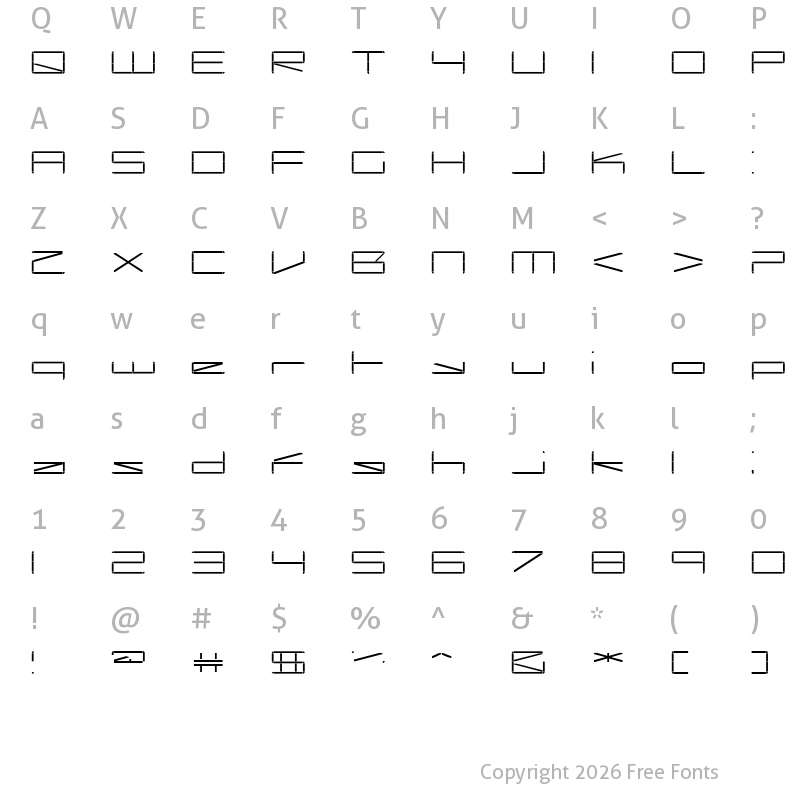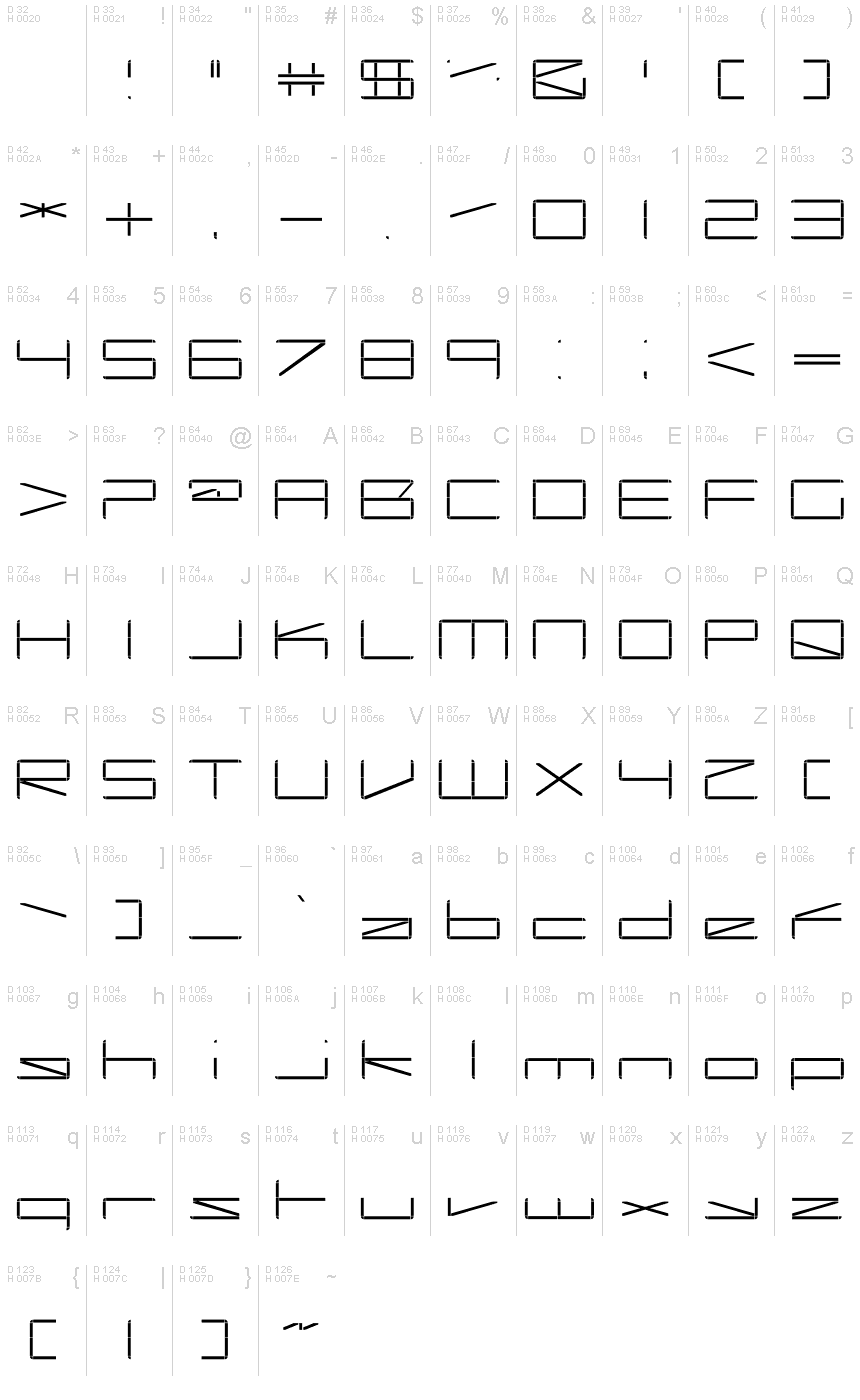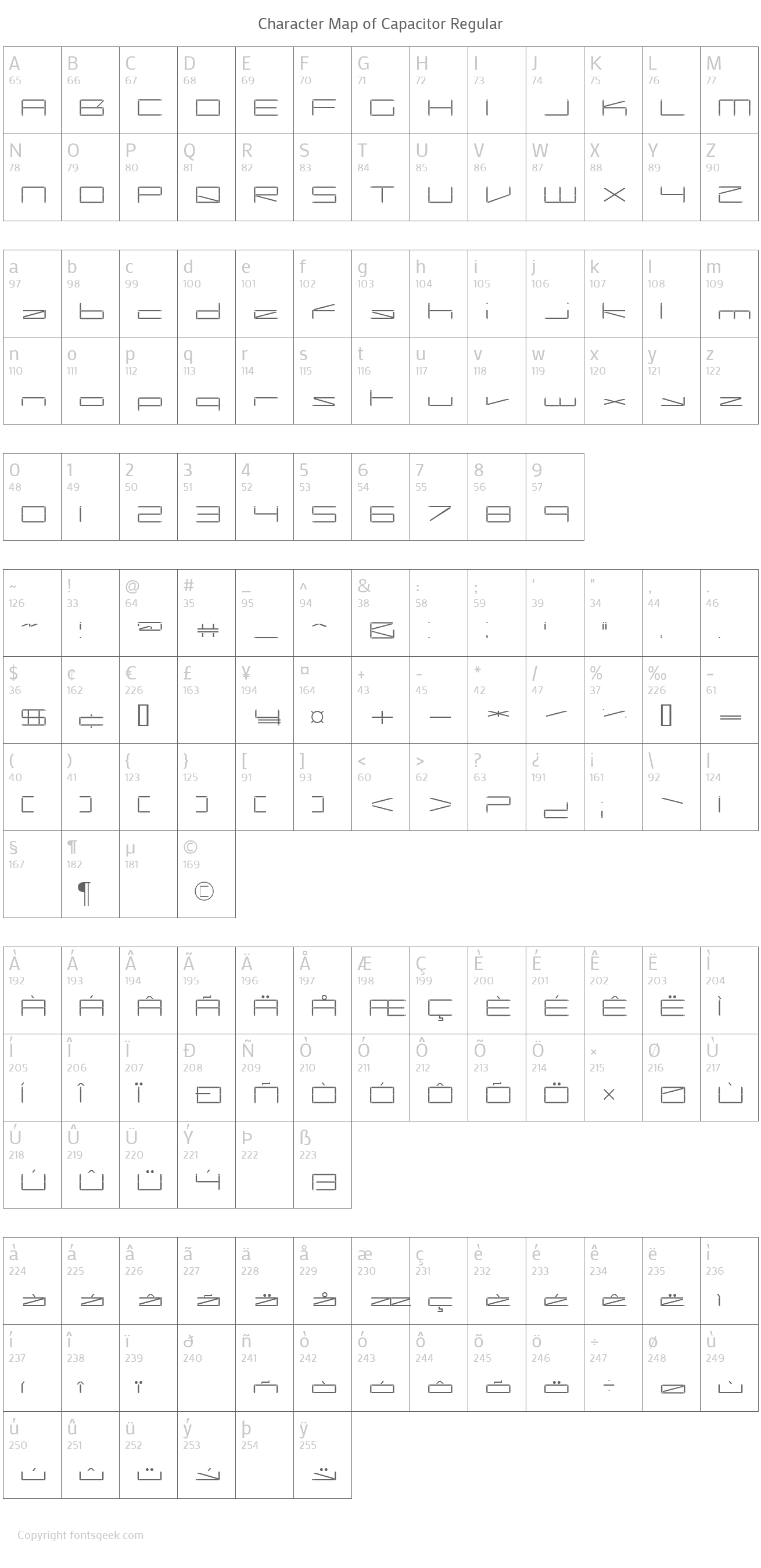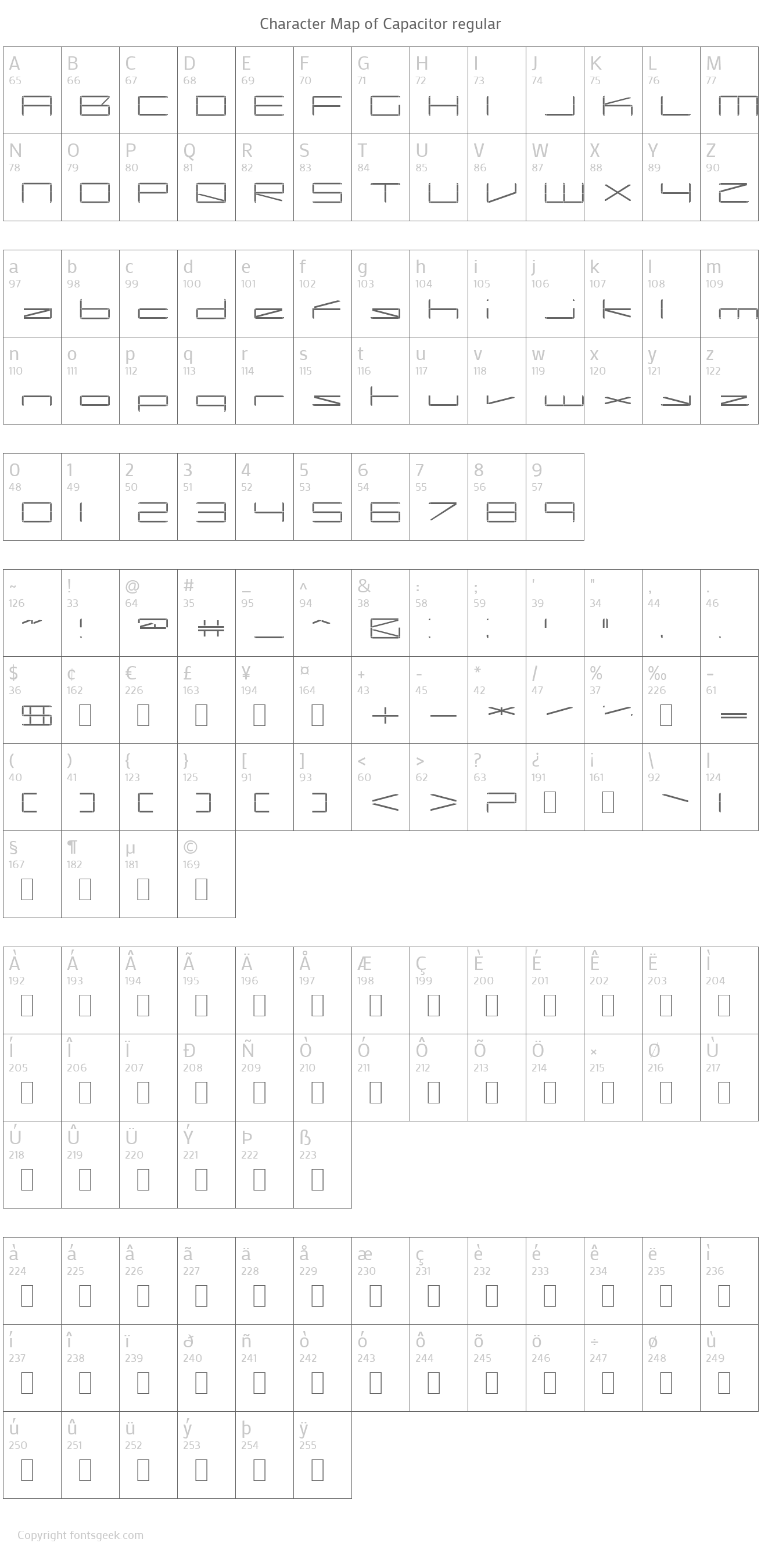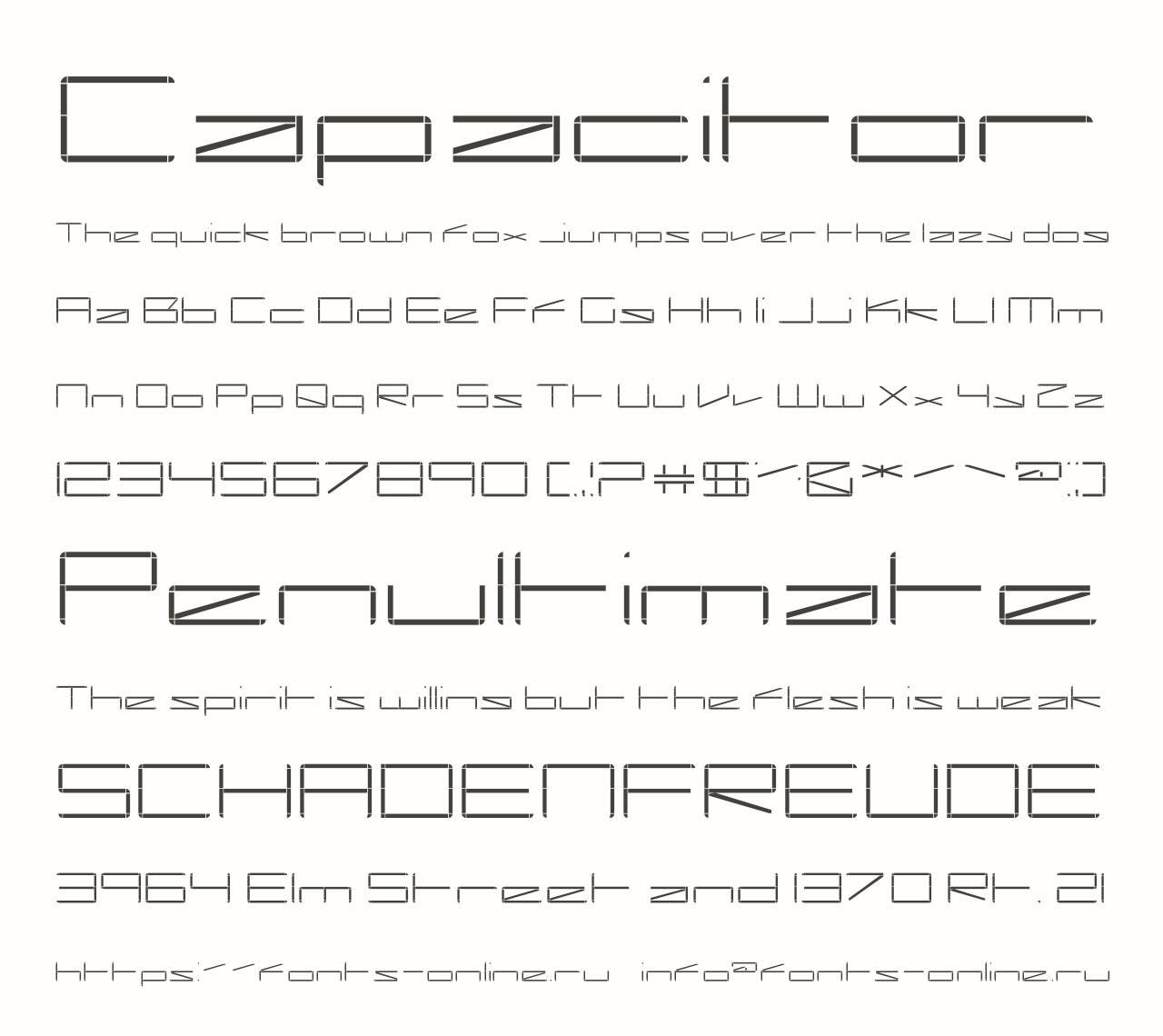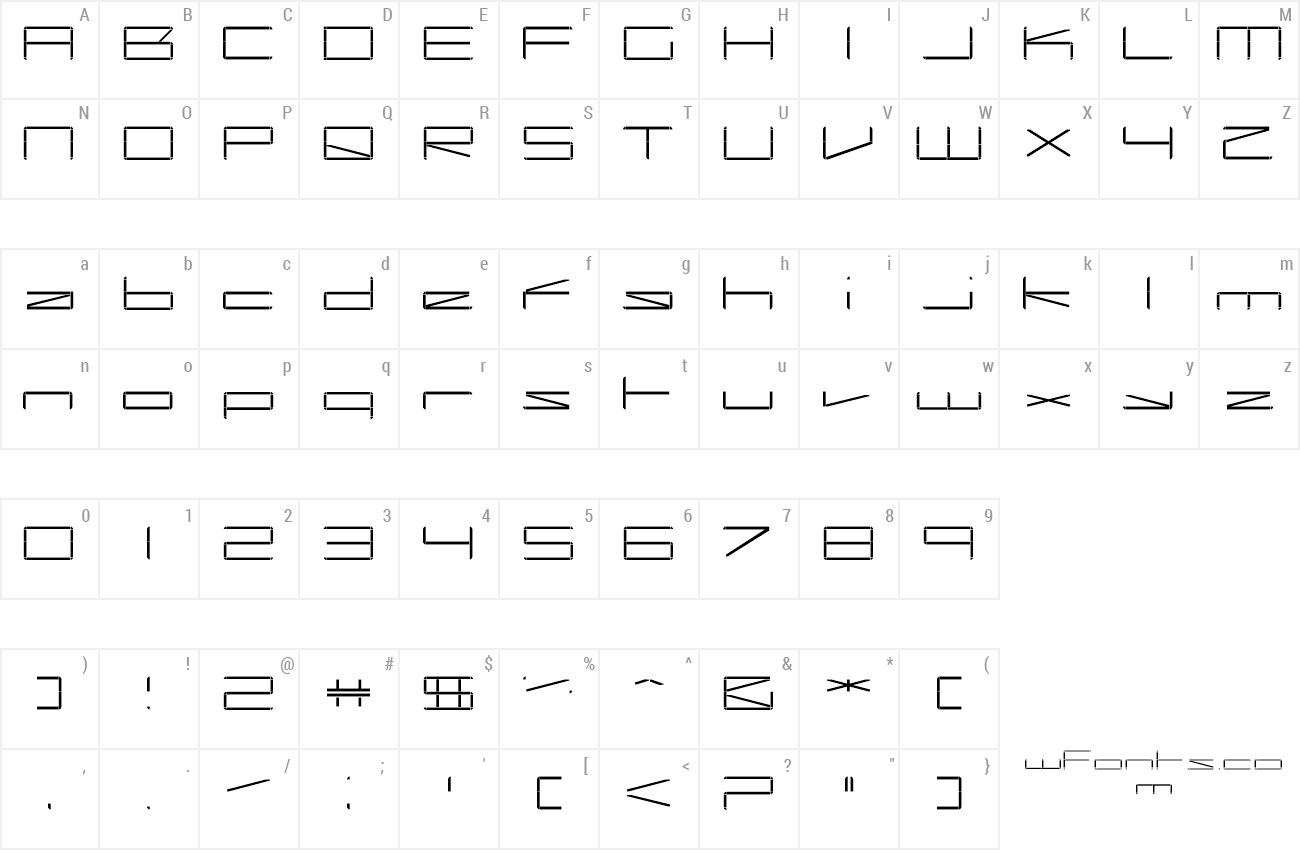
Capacitor Fonts . Free for personal use, if used for commercial purposes please read readme.txt once downloaded. ️ customize your own preview on ffonts.net to make sure it`s the right one for your designs. It’s a wider matrix that a typical segmented font is best used used at smaller sized to to. Download capacitor font · free for commercial use · capacitor is a wide, segmented lcd/led display font. The typeface contains 1 file and supports 40 languages. It’s a wider matrix that a typical segmented font is best used used at. It’s a wider matrix that a typical. Capacitor is a wide, segmented lcd/led display font. The flux capacitor font contains 83 beautifully designed characters.
The flux capacitor font contains 83 beautifully designed characters. Capacitor is a wide, segmented lcd/led display font. ️ customize your own preview on ffonts.net to make sure it`s the right one for your designs. It’s a wider matrix that a typical. It’s a wider matrix that a typical segmented font is best used used at. It’s a wider matrix that a typical segmented font is best used used at smaller sized to to. Free for personal use, if used for commercial purposes please read readme.txt once downloaded. Capacitor is a wide, segmented lcd/led display font. Download capacitor font · free for commercial use · capacitor is a wide, segmented lcd/led display font. The typeface contains 1 file and supports 40 languages.
Capacitor Fonts It’s a wider matrix that a typical segmented font is best used used at smaller sized to to. It’s a wider matrix that a typical segmented font is best used used at. The flux capacitor font contains 83 beautifully designed characters. Free for personal use, if used for commercial purposes please read readme.txt once downloaded. Capacitor is a wide, segmented lcd/led display font. The typeface contains 1 file and supports 40 languages. Download capacitor font · free for commercial use · capacitor is a wide, segmented lcd/led display font. It’s a wider matrix that a typical segmented font is best used used at smaller sized to to. ️ customize your own preview on ffonts.net to make sure it`s the right one for your designs. Capacitor is a wide, segmented lcd/led display font. It’s a wider matrix that a typical.
Capacitor Font Family by Typodermic Fonts Inc. Fontspring Capacitor Fonts ️ customize your own preview on ffonts.net to make sure it`s the right one for your designs. The flux capacitor font contains 83 beautifully designed characters. Capacitor is a wide, segmented lcd/led display font. It’s a wider matrix that a typical. Free for personal use, if used for commercial purposes please read readme.txt once downloaded. It’s a wider matrix that. Capacitor Fonts.
Flux Capacitor Font Download Fonts4Free Capacitor Fonts Capacitor is a wide, segmented lcd/led display font. It’s a wider matrix that a typical segmented font is best used used at smaller sized to to. Free for personal use, if used for commercial purposes please read readme.txt once downloaded. ️ customize your own preview on ffonts.net to make sure it`s the right one for your designs. It’s a wider. Capacitor Fonts.
Capacitor Font Capacitor Fonts Capacitor is a wide, segmented lcd/led display font. ️ customize your own preview on ffonts.net to make sure it`s the right one for your designs. The flux capacitor font contains 83 beautifully designed characters. Free for personal use, if used for commercial purposes please read readme.txt once downloaded. Download capacitor font · free for commercial use · capacitor is a. Capacitor Fonts.
Capacitor Font · 1001 Fonts Capacitor is a wide, segmented lcd/led display font. The typeface contains 1 file and supports 40 languages. Free for personal use, if used for commercial purposes please read readme.txt once downloaded. It’s a wider matrix that a typical. Capacitor is a wide, segmented lcd/led display font. It’s a wider matrix that a typical segmented font is best used used at. Capacitor Fonts.
Free font "Capacitor" by Typodermic Fonts Capacitor Fonts The flux capacitor font contains 83 beautifully designed characters. The typeface contains 1 file and supports 40 languages. Capacitor is a wide, segmented lcd/led display font. Download capacitor font · free for commercial use · capacitor is a wide, segmented lcd/led display font. ️ customize your own preview on ffonts.net to make sure it`s the right one for your designs.. Capacitor Fonts.
Capacitor Regular truetype font Capacitor Fonts The typeface contains 1 file and supports 40 languages. It’s a wider matrix that a typical segmented font is best used used at smaller sized to to. The flux capacitor font contains 83 beautifully designed characters. ️ customize your own preview on ffonts.net to make sure it`s the right one for your designs. Download capacitor font · free for commercial. Capacitor Fonts.
Flux Capacitor font details Capacitor Fonts ️ customize your own preview on ffonts.net to make sure it`s the right one for your designs. It’s a wider matrix that a typical segmented font is best used used at smaller sized to to. The flux capacitor font contains 83 beautifully designed characters. Download capacitor font · free for commercial use · capacitor is a wide, segmented lcd/led display. Capacitor Fonts.
Flux Capacitor Regular truetype font Capacitor Fonts Free for personal use, if used for commercial purposes please read readme.txt once downloaded. Capacitor is a wide, segmented lcd/led display font. It’s a wider matrix that a typical. Capacitor is a wide, segmented lcd/led display font. ️ customize your own preview on ffonts.net to make sure it`s the right one for your designs. Download capacitor font · free for. Capacitor Fonts.
Capacitor Font Font Canyon Capacitor Fonts Download capacitor font · free for commercial use · capacitor is a wide, segmented lcd/led display font. It’s a wider matrix that a typical segmented font is best used used at. The typeface contains 1 file and supports 40 languages. Capacitor is a wide, segmented lcd/led display font. It’s a wider matrix that a typical segmented font is best used. Capacitor Fonts.